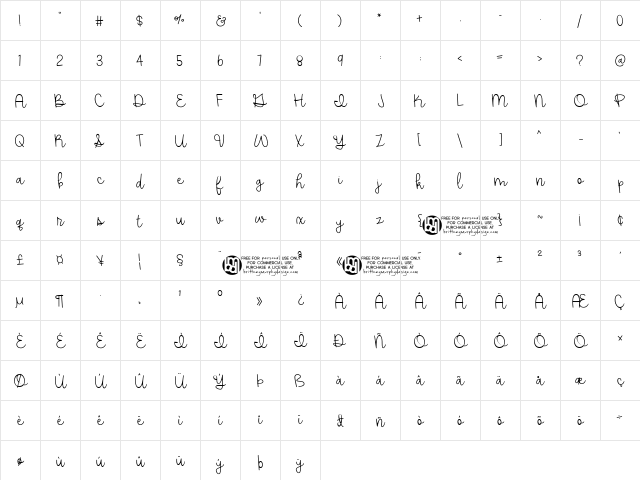
Farmhouse Rooster Demo Regular
Design Context for Farmhouse Rooster Demo Typeface
Farmhouse Rooster Demo takes a measured approach to typography — its balanced proportions and neutral character make it a reliable workhorse for both digital and print work.